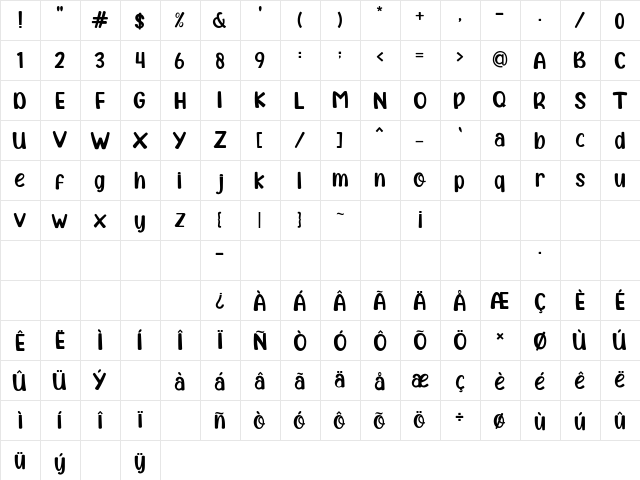
Amoeba Square Regular
| Foundry | Graphicxell |
| Designer | Usman Al Baehaqi |
Design Context for Amoeba Square Typeface
Amoeba Square takes a measured approach to typography — its balanced proportions and neutral character make it a reliable workhorse for both digital and print work.